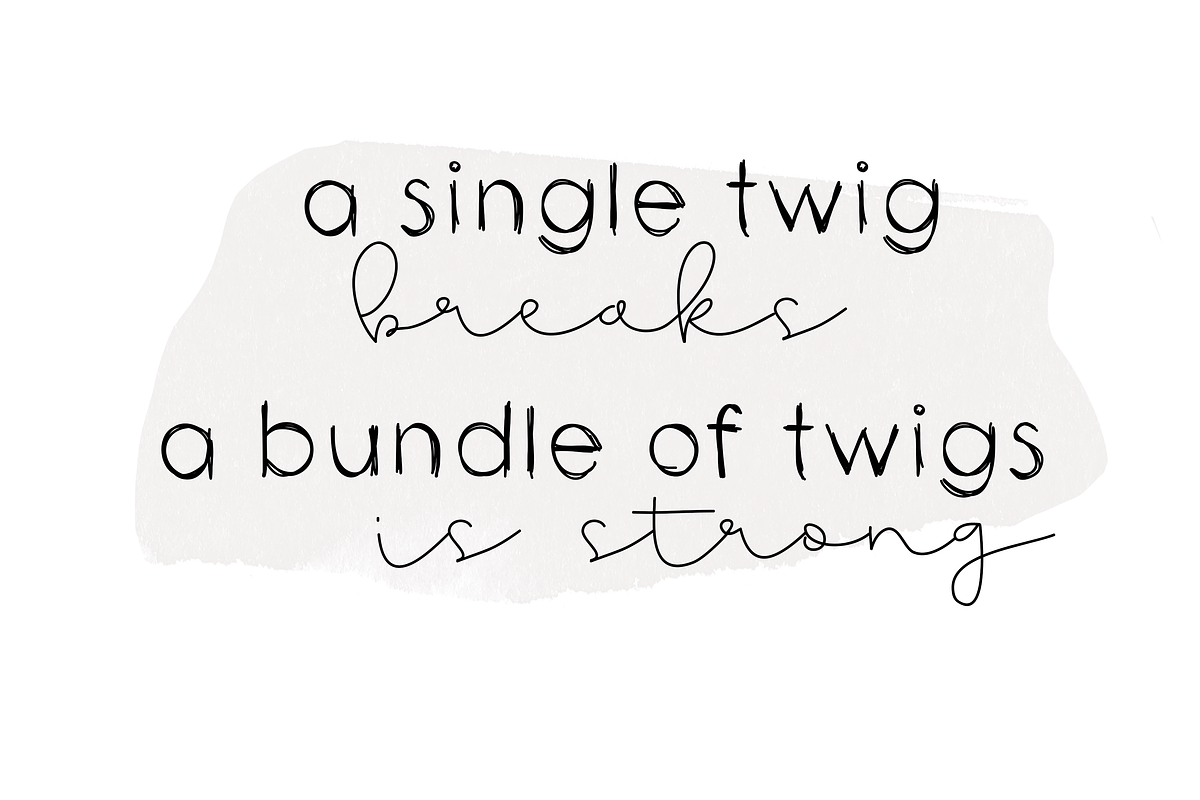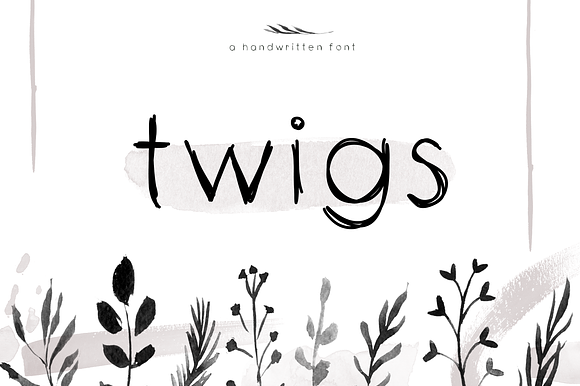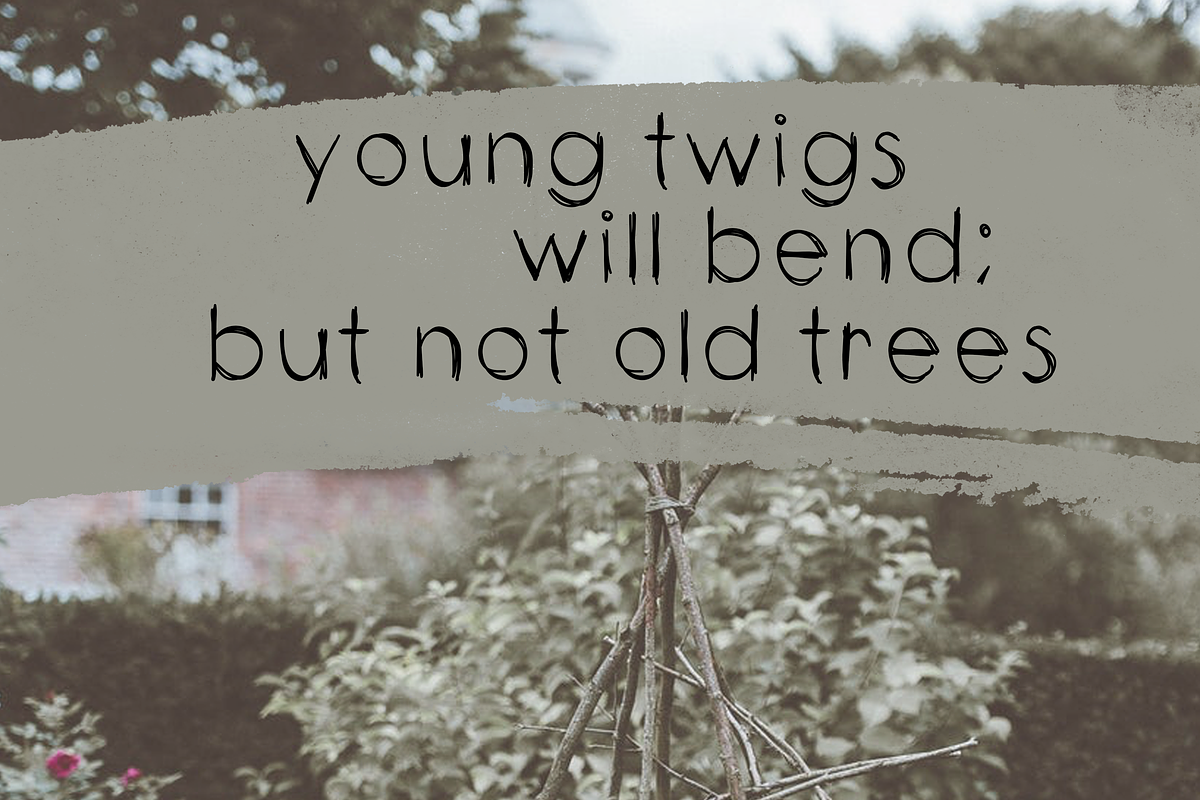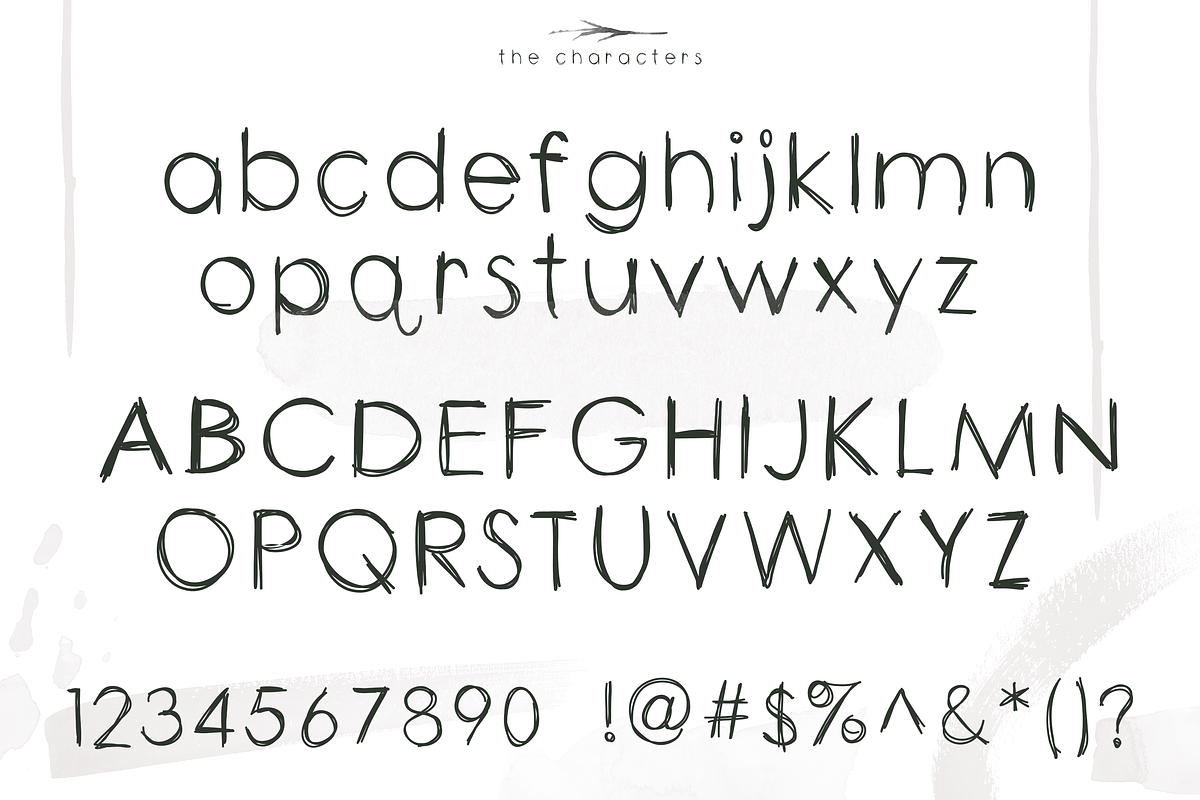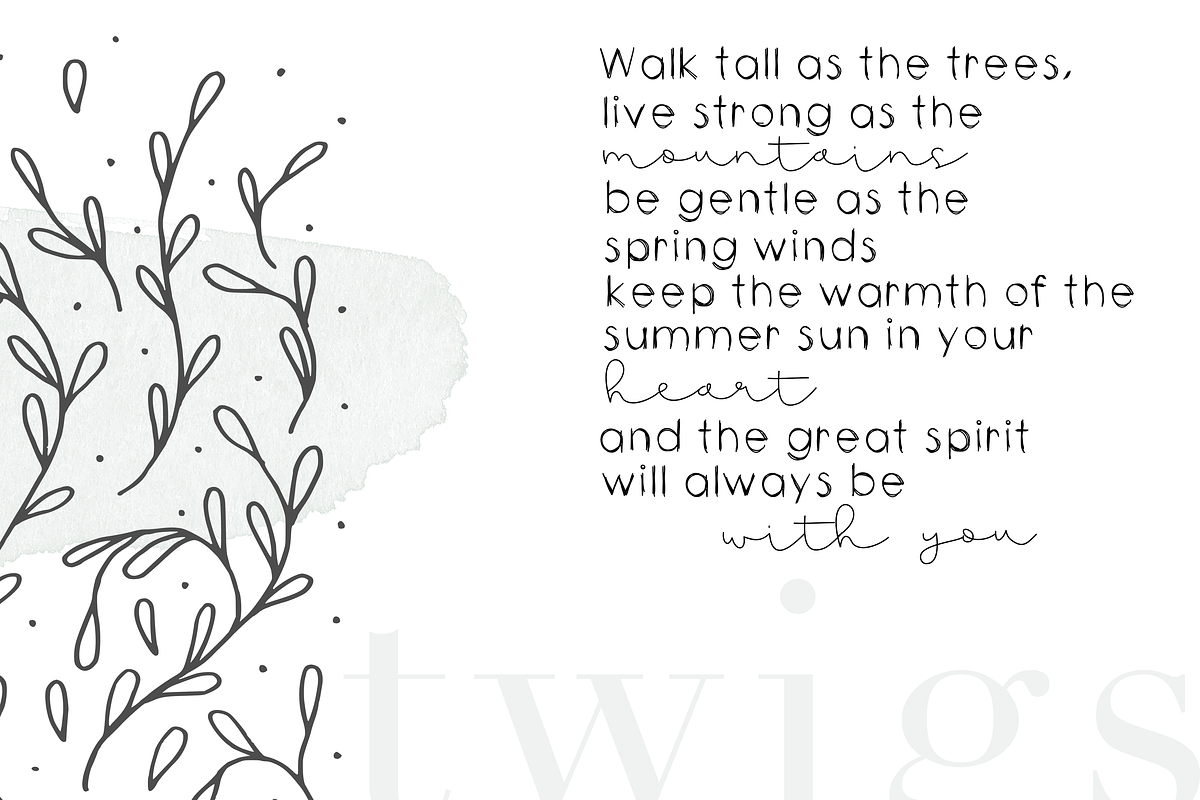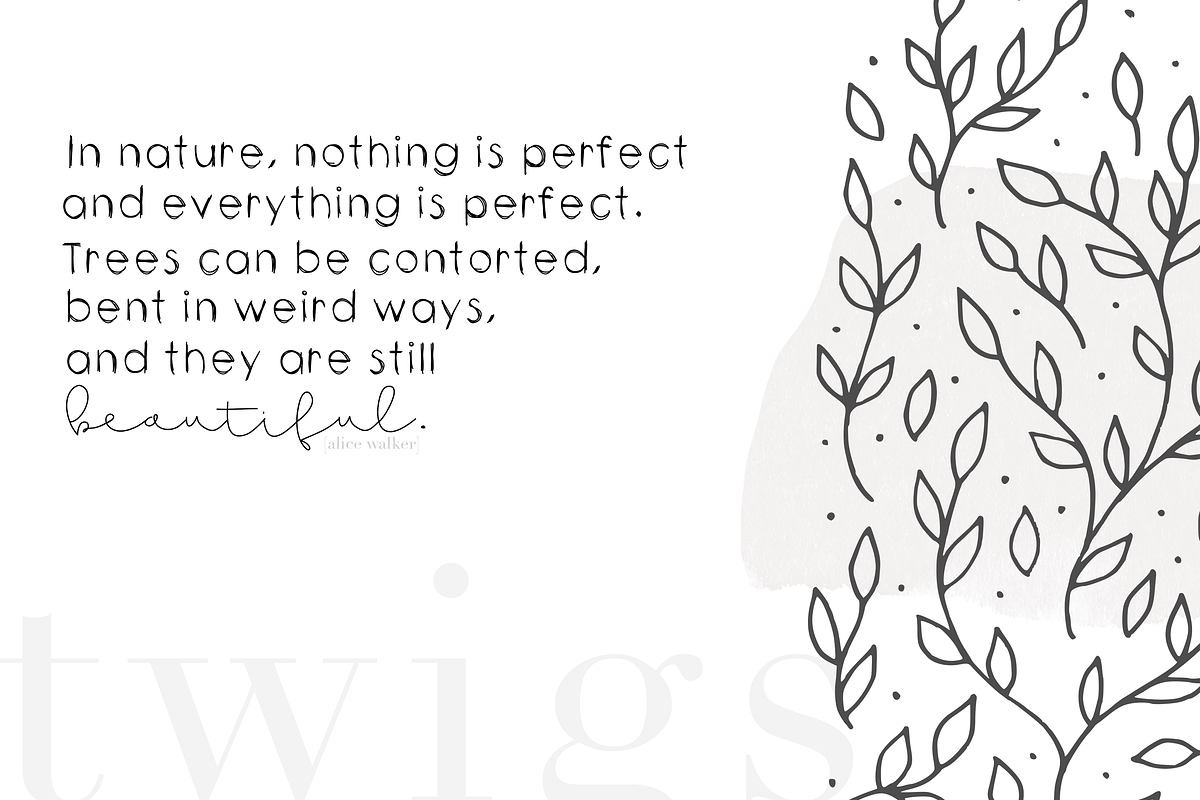
Twigs - A Handwritten Scribble Font
Twigs is an earthy handwritten font. This font is perfect for quotes, headings, blogs, logos, invitations and more!